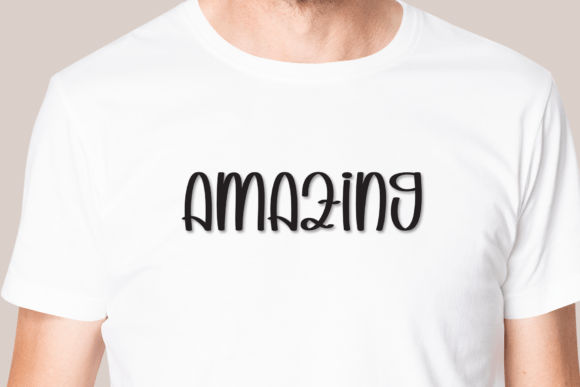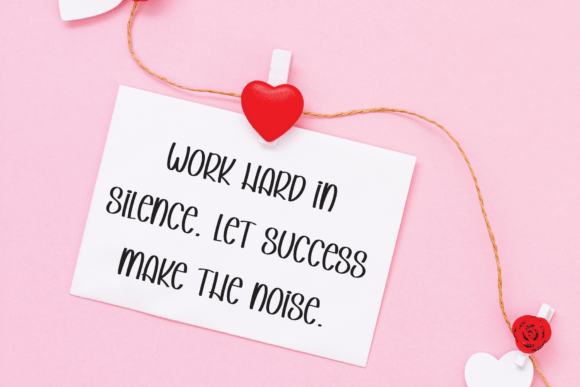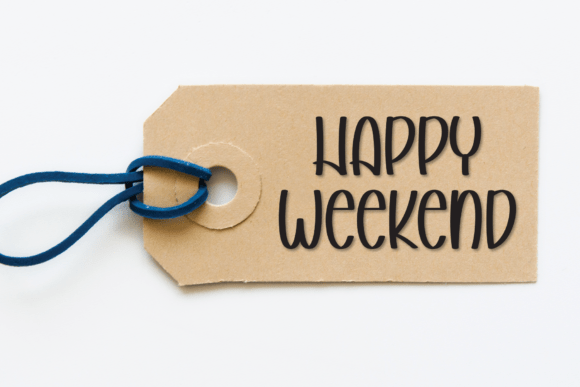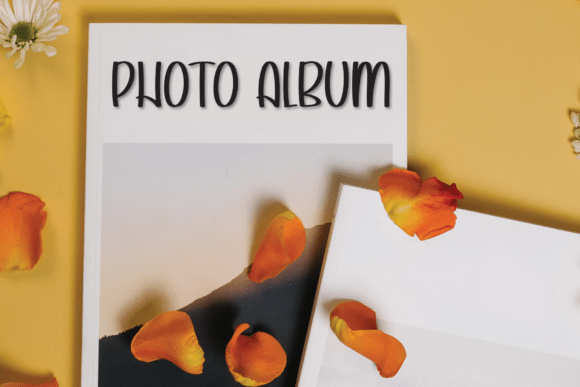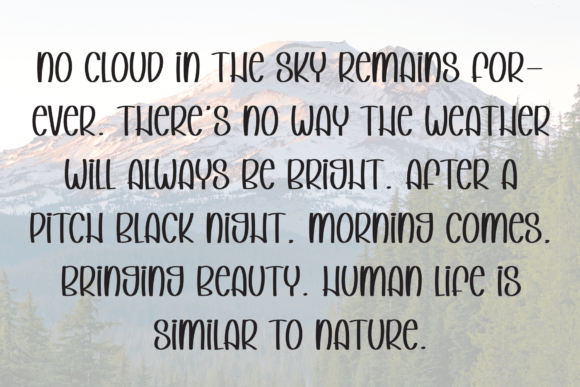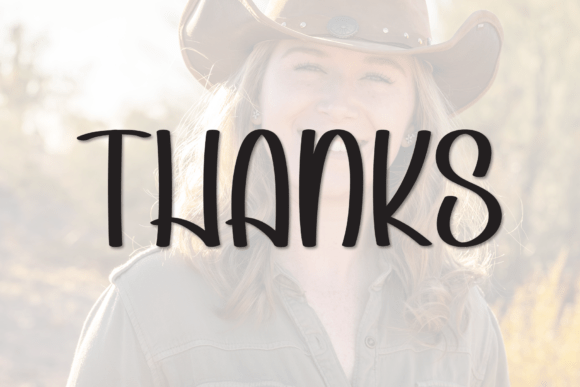
Introduction to Smiling Cowgirls Font
Saddle up your designs with the Smiling Cowgirls Font, a fun and lively creative style typeface that features a relaxed, bubbly structure with a distinct personality.
This all-caps font has a handwritten, almost marker-drawn quality, with thick, smoothly rounded strokes that give it a substantial and friendly feel The Smiling Cowgirls font is excellent for projects requiring a blend of country charm and modern, casual appeal, such as apparel design, rustic branding, social media posts, and playful signage.
Key Features of Smiling Cowgirls Font
Why Choose Smiling Cowgirls Font?
Smiling Cowgirls Font offers exceptional quality and versatility, making it a valuable addition to your design toolkit. Whether you’re creating for personal projects or commercial use, Smiling Cowgirls Font delivers professional results.